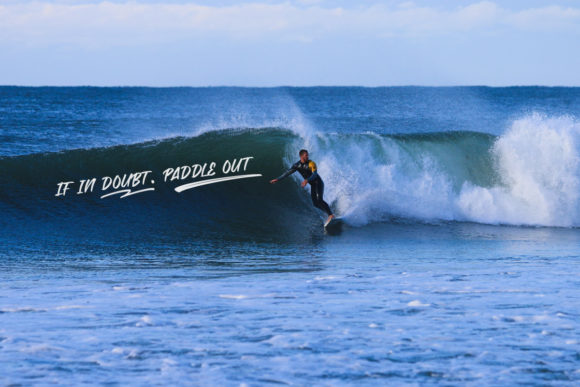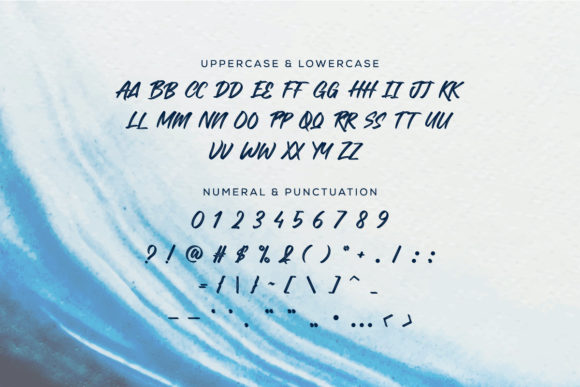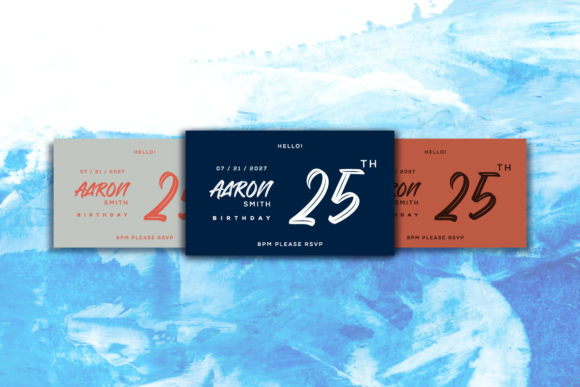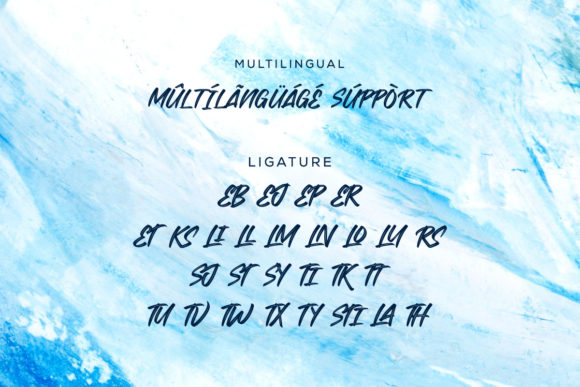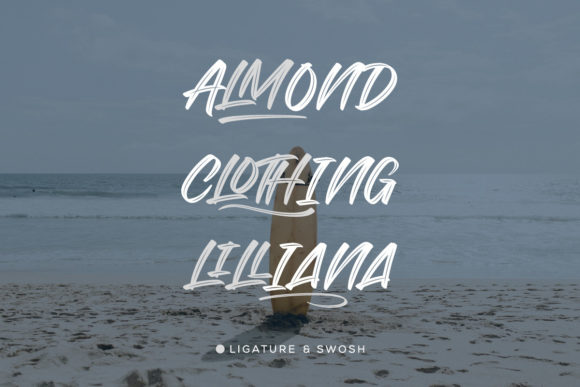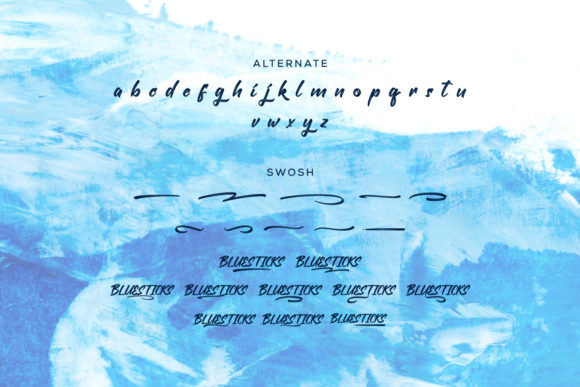
The Perfect Brush for Your Next Design
Have you ever found yourself in the middle of a design project, staring at a blank canvas, and feeling like something’s missing? You’ve got your colors, your shapes, and your typography, but it’s just not quite coming together. That’s when the magic happens – you stumble upon the perfect font, and suddenly everything clicks.
Enter Bluesticks Font, a cool, brushed, and urban styled handwritten font that’s perfect for fashion branding or editorial designs. This stylish font adds a touch of sophistication to any project, and its unique personality is sure to capture the attention of your audience. Whether you’re a seasoned designer or just starting out, Bluesticks Font is a valuable addition to your toolkit, guaranteed to elevate your designs to the next level.
Key Features of Bluesticks Font
- Unique Characteristics: Bluesticks Font features a unique blend of modern and vintage elements, with a distinctive blue color scheme that sets it apart from other fonts.
- Font Style: The font includes a range of styles, including Regular, Bold, Italic, and Bold Italic, providing users with flexibility and versatility.
Bluesticks Font Review
Overall, I think Bluesticks Font has some great qualities that make it a solid choice for designers. ✨ One thing that stands out is its unique and stylish aesthetic, which adds a touch of sophistication to any design project. The font’s elegant curves and subtle nuances make it perfect for branding, logos, and other high-end designs.
- Unique and stylish aesthetic
- Elegant curves and subtle nuances
- Perfect for branding, logos, and other high-end designs
However, there are some limitations to consider. ⚠️ One of the main issues is that Bluesticks Font can be quite difficult to read in smaller sizes, which may make it less suitable for body text or other areas where readability is crucial. Additionally, the font may not be as versatile as some other options, which could limit its use in certain design contexts.
- Difficult to read in smaller sizes
- May not be as versatile as other options
Overall, I think Bluesticks Font is a great choice for designers who want to add a touch of elegance and sophistication to their designs. While it may have some limitations, its unique aesthetic and stylish curves make it a solid option for a wide range of design projects.
- Use Bluesticks Font for headings and titles to add a touch of elegance and sophistication.
- Pair Bluesticks Font with other fonts to create a unique and visually appealing design.